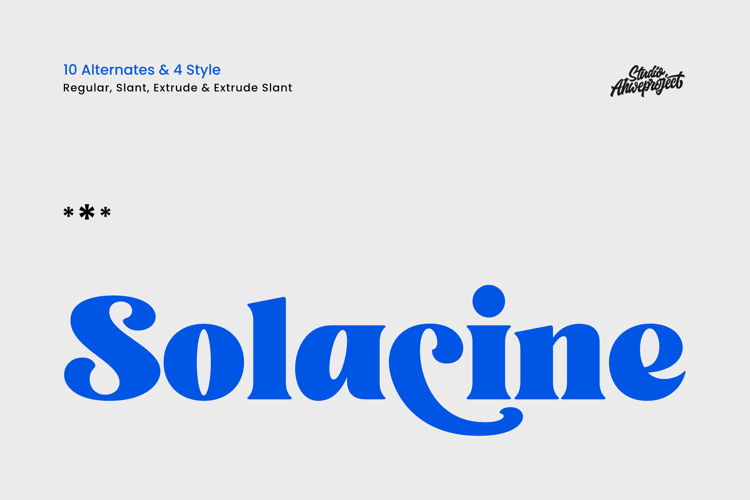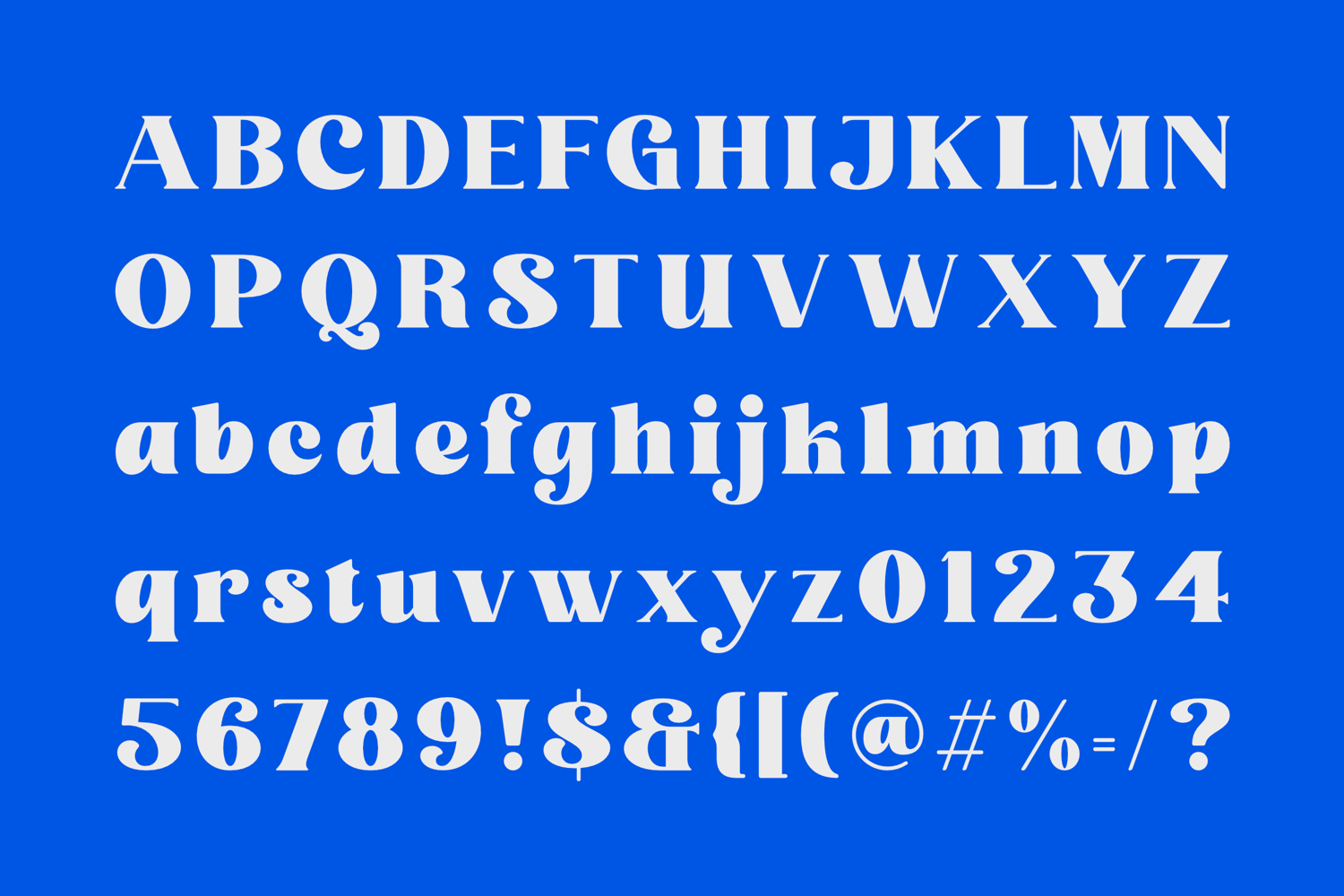
Solacine
Solacine is a bold retro display serif with lively curves and a confident groove—perfect for logos, big headlines, posters, packaging, and social media visuals. Its rounded shapes and flowing “c” tail deliver a fun yet tidy look that grabs attention instantly.
Highlights:
- 4 styles: Regular, Slant, Extrude, and Extrude Slant—mix them for striking 3D effects.
- 10 Alternates to craft distinctive wordmarks and standout titles.
- Ideal for modern–retro branding: fashion, food & beverage, music, events, and lifestyle.
- Optimized for headline & display: YouTube thumbnails, banners, stickers, merch, and editorials.
- Full set of Upper & Lowercase Character
- Number & Punctuation
- Multilingual Language
- PUA encoded
- Opentype Features